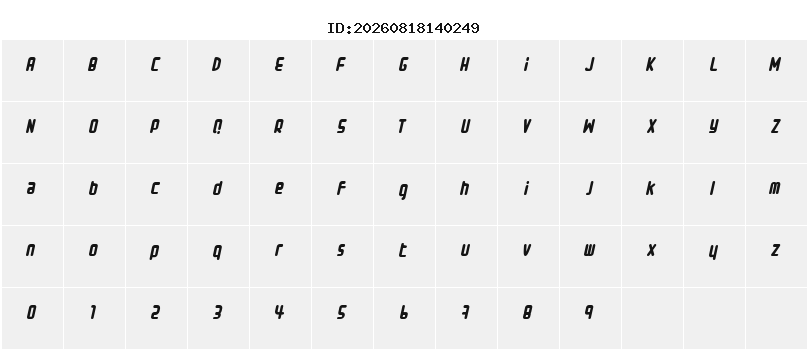
Small type (italic) Preview
• Font Name: Small type (italic)
• Font ID: Macromedia Fontographer 4.1 Small type (italic)
• Full Font Name: Small type (italic)
• Version: Macromedia Fontographer 4.1 14.3.2002
• PostScript Name: Smalltypeitalic
• Character Count: 86
About Small type (italic).ttf
Small type (italic).ttf is a modern, elegant sans-serif font designed for ultimate readability and visual harmony. Perfect for branding, headlines, web design, and print materials.